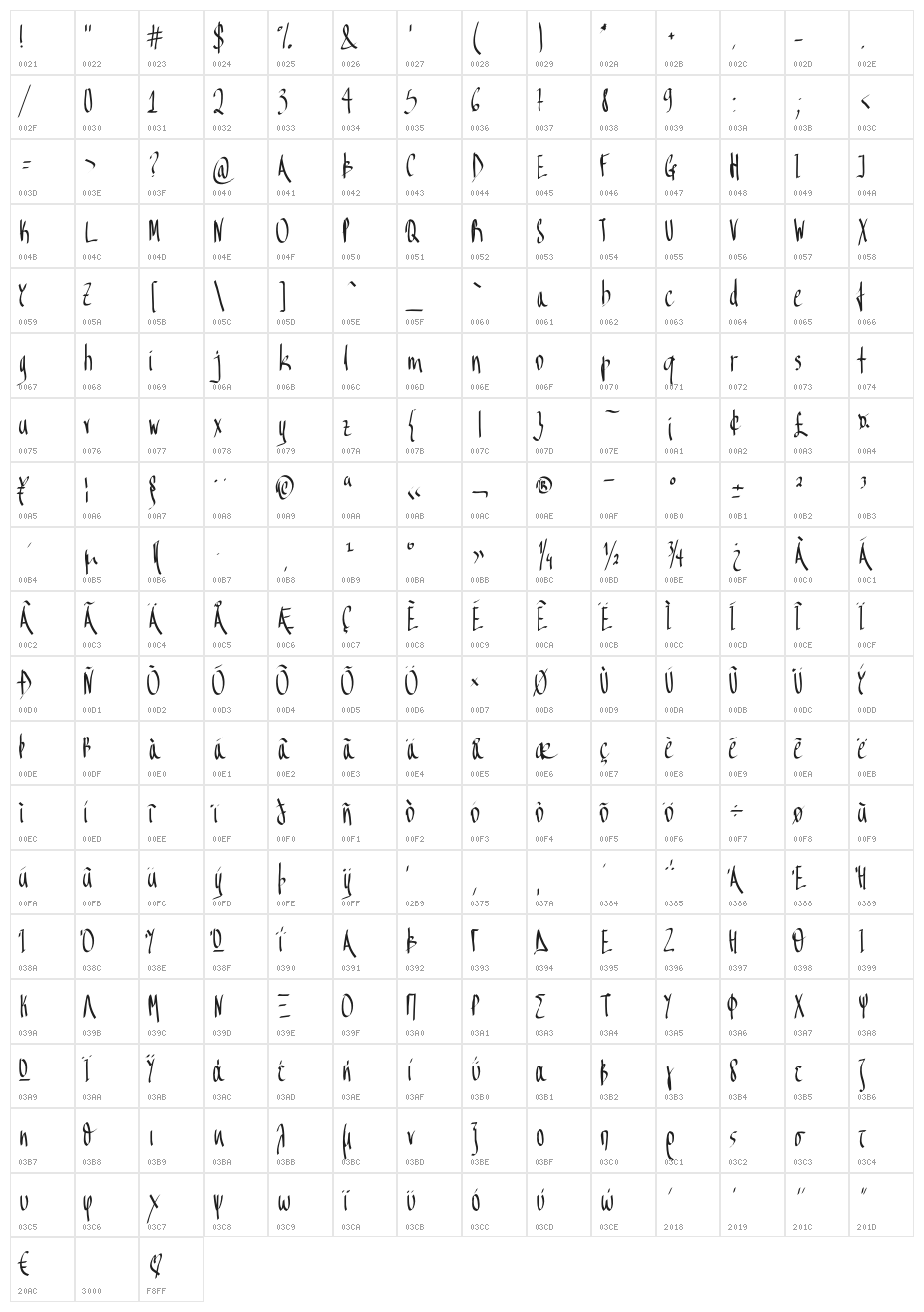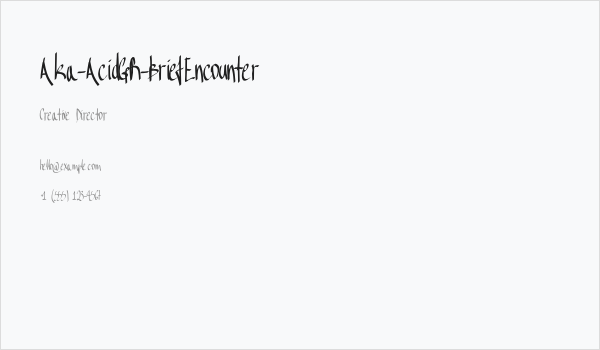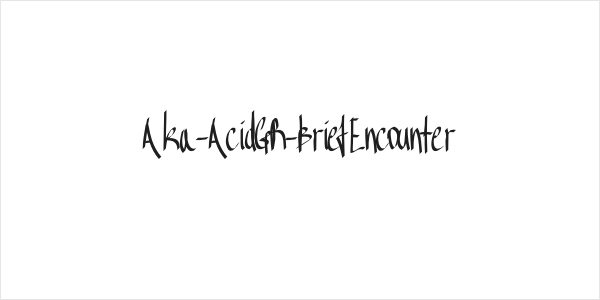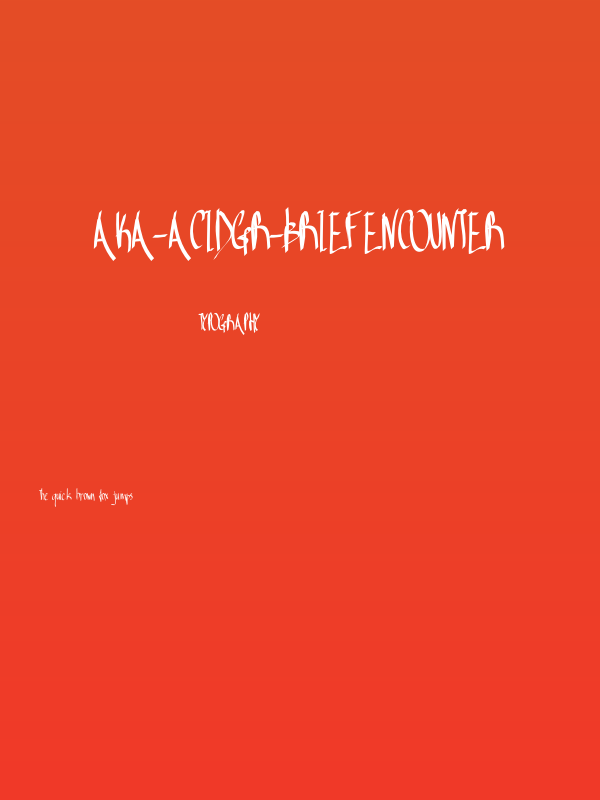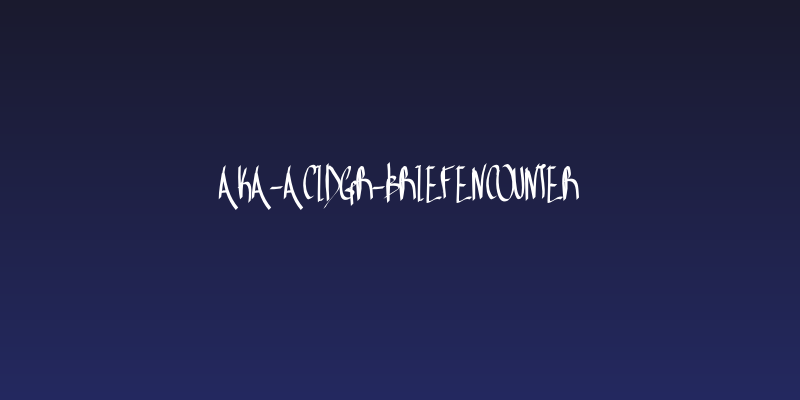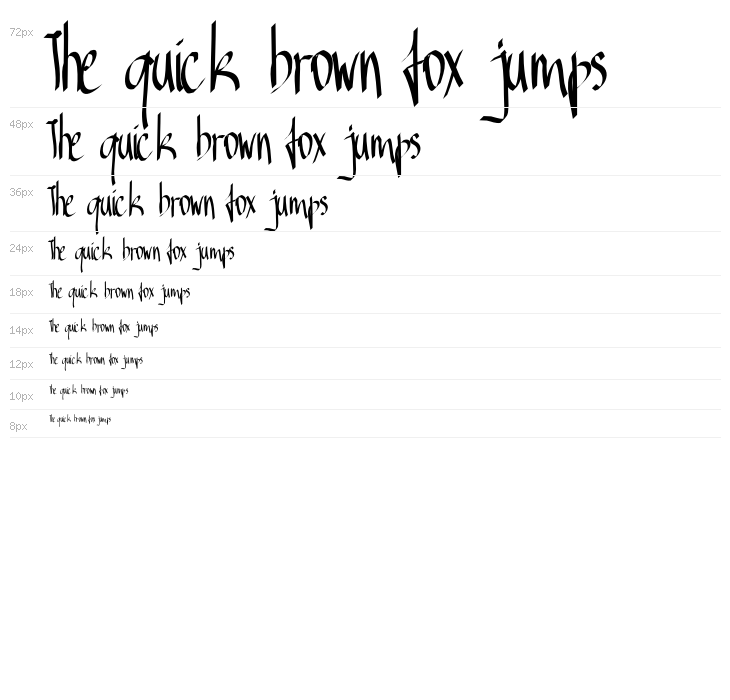
Aka-AcidGR-BriefEncounter Font
Aka-AcidGR-BriefEncounter Description
This font features an expressive and dynamic style, characterized by its fluid, brush-like strokes that convey a sense of movement and energy. The uppercase letters are bold and slightly irregular, giving them a hand-drawn appearance. The lowercase letters maintain this fluidity, with some characters featuring elongated ascenders and descenders, adding to the overall artistic feel. The numbers and special characters are consistent with this style, offering a cohesive look throughout. This font's unique and artistic nature makes it stand out, ideal for creative projects that require a personal touch.
| Proposed Projects | Ideal for artistic projects, branding, posters, and invitations that require a personal and creative touch. |